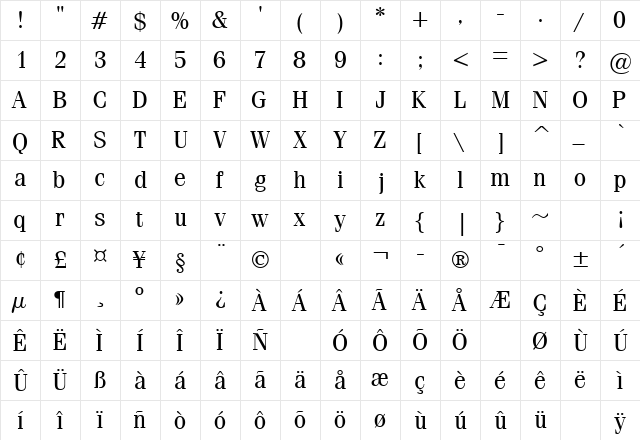
CompendiumBookSSK Regular
Design Context for CompendiumBookSSK Typeface
CompendiumBookSSK takes a measured approach to typography — its balanced proportions and neutral character make it a reliable workhorse for both digital and print work.